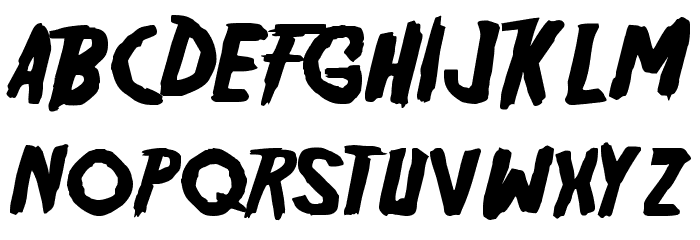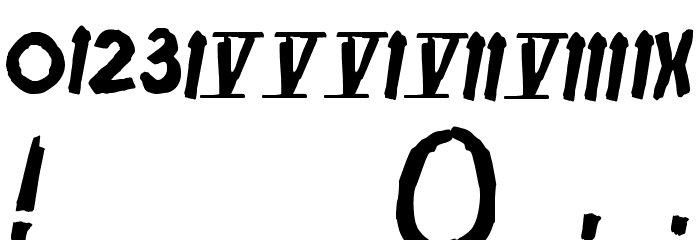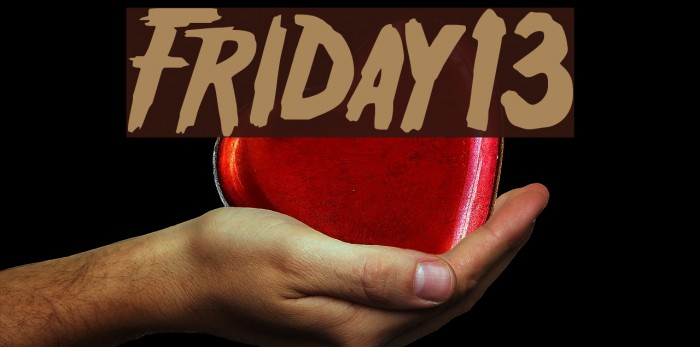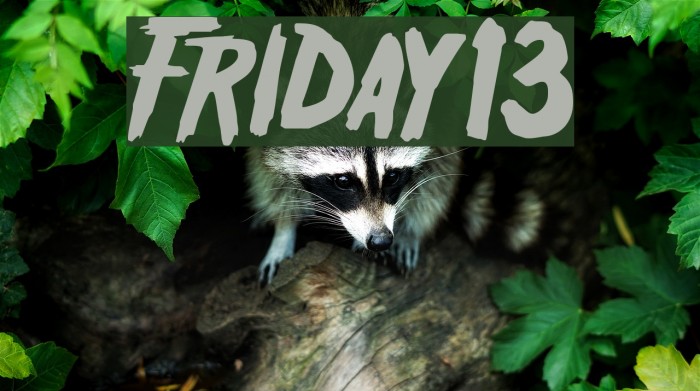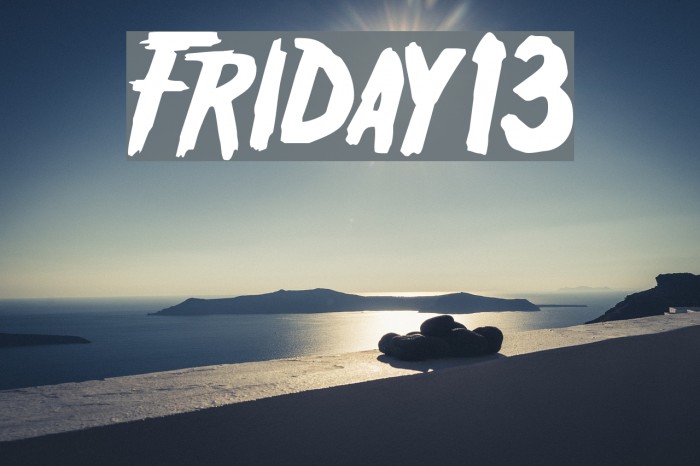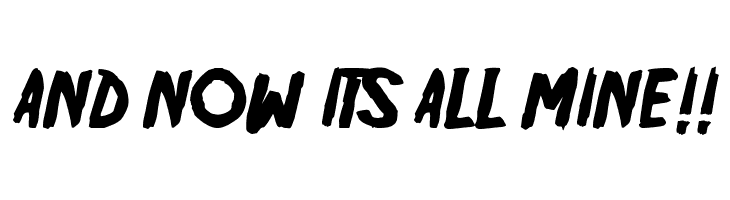
Friday13 Font
This font features a bold and dynamic style with a hand-drawn appearance, reminiscent of horror or thriller themes. The characters have a jagged, uneven edge, giving them a raw and edgy look. The uppercase and lowercase letters maintain a consistent style, with a slightly condensed form that adds to the intensity of the design. The numbers and special characters follow the same aesthetic, ensuring a cohesive look across all elements. The font's irregular strokes and high contrast between thick and thin lines contribute to its dramatic and eye-catching appearance.
A bold, hand-drawn font with a jagged, horror-inspired style.
- Proposed Projects: Ideal for horror movie posters, Halloween event flyers, or any project requiring a dramatic and edgy typeface.
- Use Case: Headlines, Posters, Logos